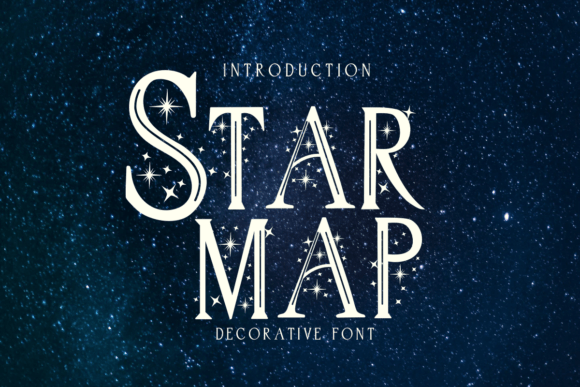
Star Map Font
Star Map is a decorative serif font that captures the magic of the night sky with its elegant, celestial-inspired design.
Its refined serif letterforms are accented with subtle star motifs and graceful curves, creating a sense of wonder and sophistication. Perfect for astrology-themed projects, luxury branding, book covers, wedding invitations, or dreamy digital graphics, Star Map shines in both print and digital formats.
Its balance of classic elegance and whimsical detailing makes it a versatile typeface for designers seeking to infuse their work with a touch of cosmic beauty and timeless style.